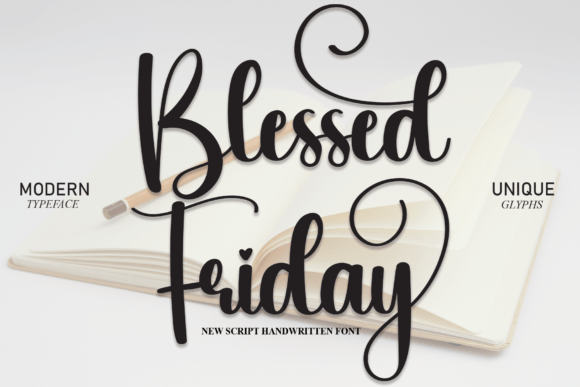
Dive into the world of Blessed Friday Font, an enchanting script typeface that weaves a tale of love, romance, and elegance. Embark on a creative journey where your designs take center stage, infused with a touch of heartfelt emotion and timeless charm.
Blessed Friday Font is not just a collection of letters; it's an artistic expression that captures the essence of handwritten beauty. Picture words flowing across the page like a gentle breeze, carrying your message with grace and sophistication. Whether you're crafting wedding invitations, heartfelt letters, or captivating branding materials, Blessed Friday Font is your perfect companion.
Its characters dance along the baseline, exuding a sense of joy and freedom. Each stroke is a testament to the artistry of its creator, andikastudio, who has poured their heart and soul into every curve and flourish. Blessed Friday Font is a visual masterpiece that will transform your designs into works of art.
With Blessed Friday Font, you'll discover a world of creative possibilities. Its versatility knows no bounds, allowing you to effortlessly create stunning logos, eye-catching social media posts, and website designs that capture your audience's attention. Blessed Friday Font is the key to unlocking your creative potential and leaving a lasting impression on your clients and customers.
Don't settle for ordinary fonts when you can unleash the magic of Blessed Friday Font. Let your designs radiate with romance, elegance, and a touch of whimsy. Embrace the power of authentic typography and elevate your projects to new heights.
Blessed Friday Font is more than just a font; it's an investment in your creative journey. It's the perfect choice for designers, crafters, and anyone who seeks to add a touch of enchantment to their work. So, step into the world of Blessed Friday Font today and let your creativity flourish.